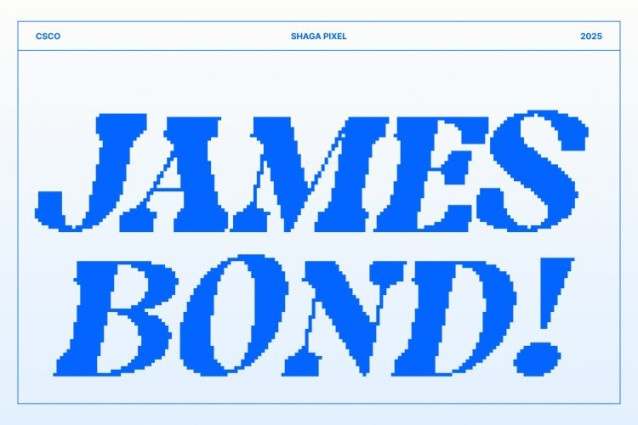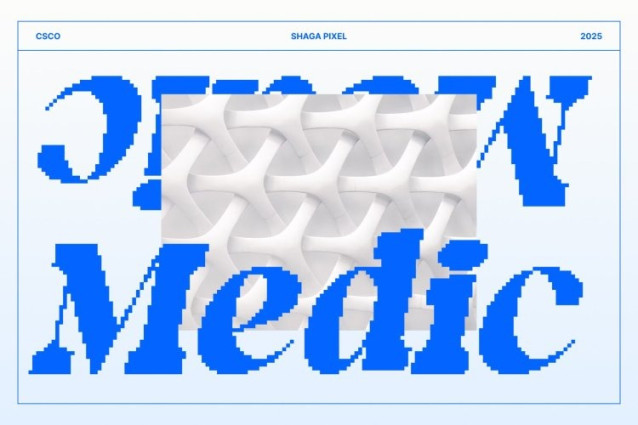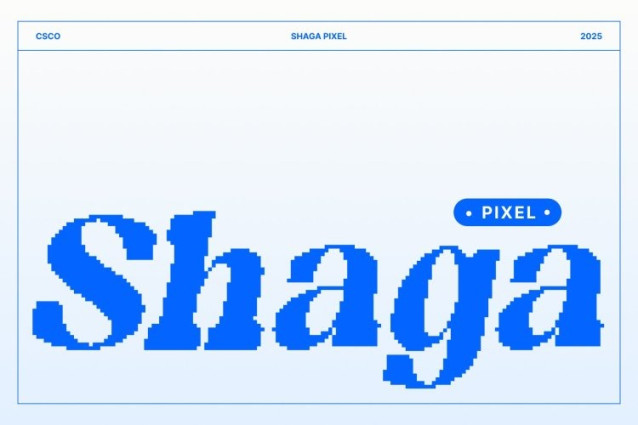
Shaga Pixel Font
Shaga Pixel Font – This font captures the magic of classic gaming with its retro pixel style and handcrafted texture. Each character radiates nostalgic energy, evoking the glow of retro arcades and 8-bit adventures.
Playful, Handmade, and Full of Character
The subtle handmade finish adds depth and warmth, giving the font a more personal, creative touch. This makes this font not just nostalgic, but also uniquely expressive perfect for projects that blend retro aesthetics with modern creativity.
Perfect for Games, Posters, and Playful Branding
Ideal for gaming titles, posters, logos, or playful branding, this font brings a fun and dynamic tone to your designs, transforming simple text into a vibrant visual experience.
Retro Charm with Modern Playfulness
Combining pixel precision and artistic imperfection, this font is a celebration of retro design, creativity, and digital nostalgia perfect for capturing attention with a sense of fun and familiarity.